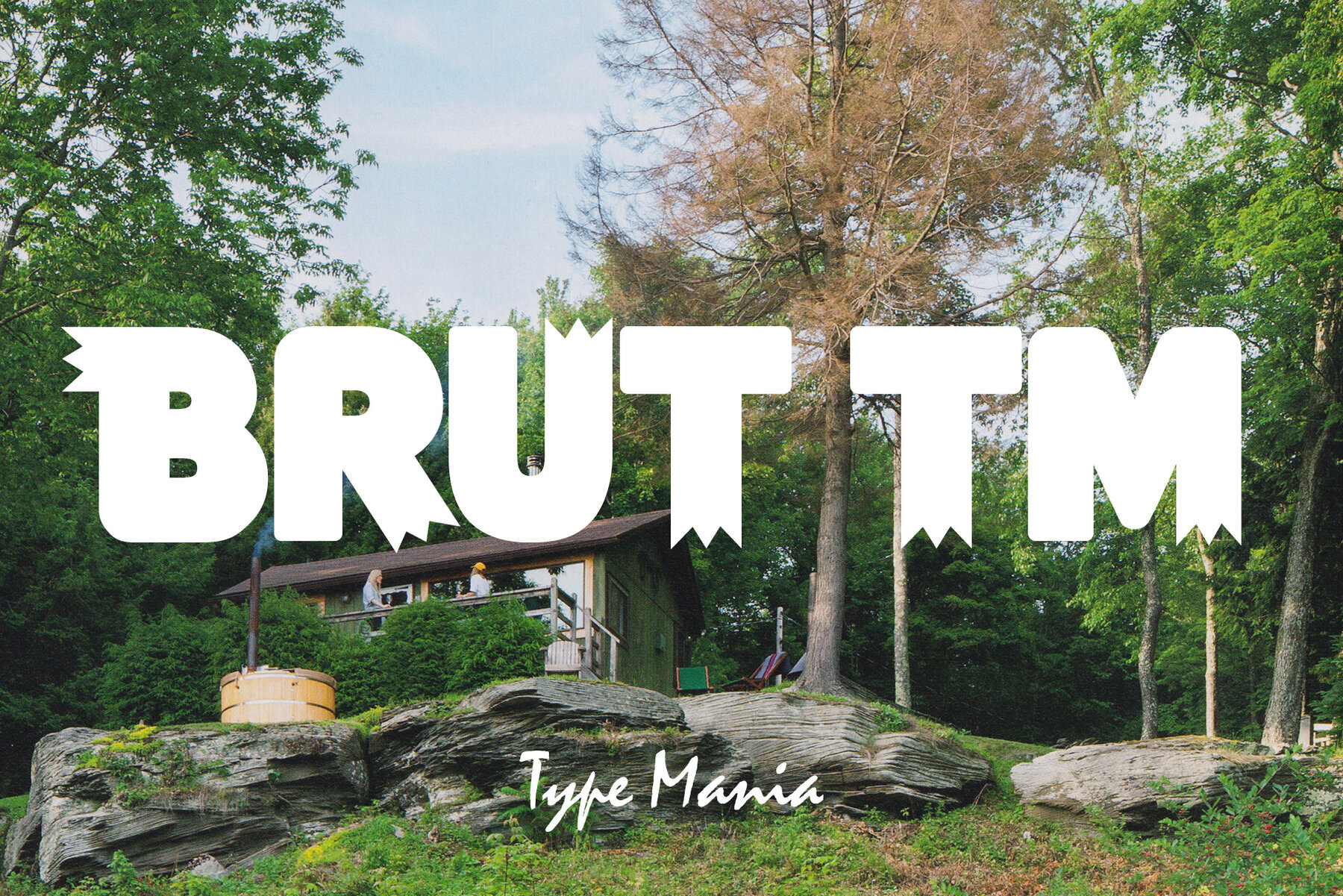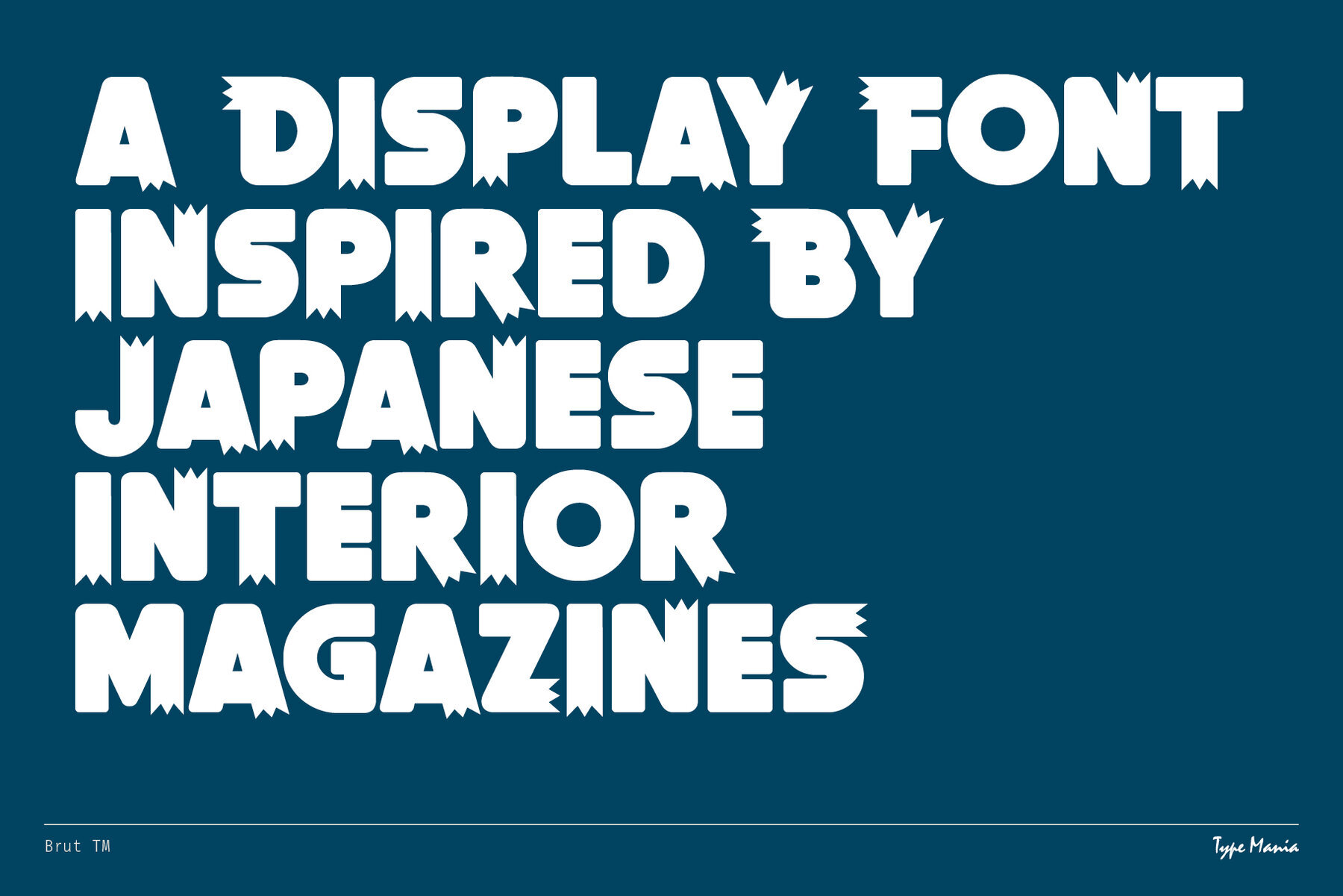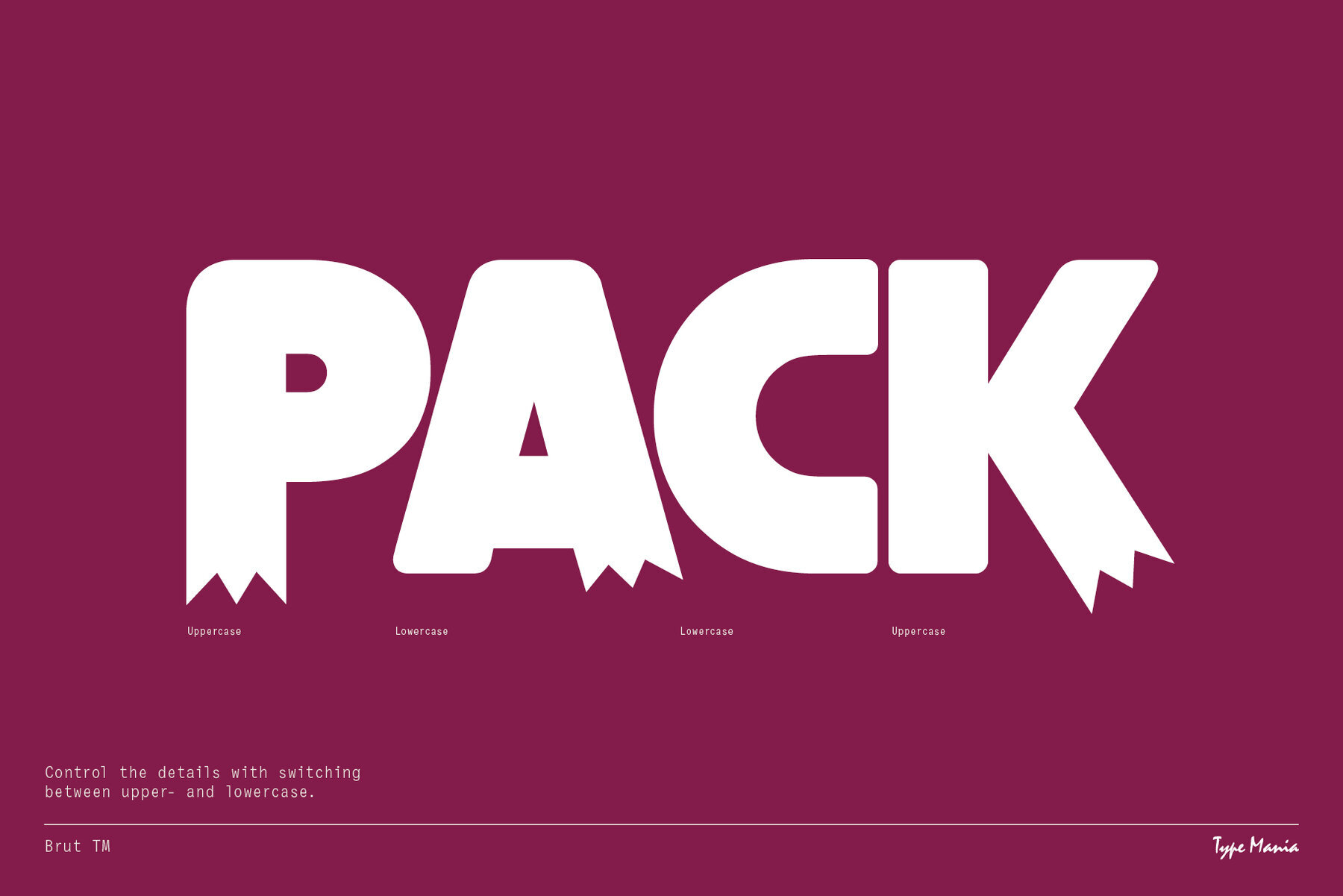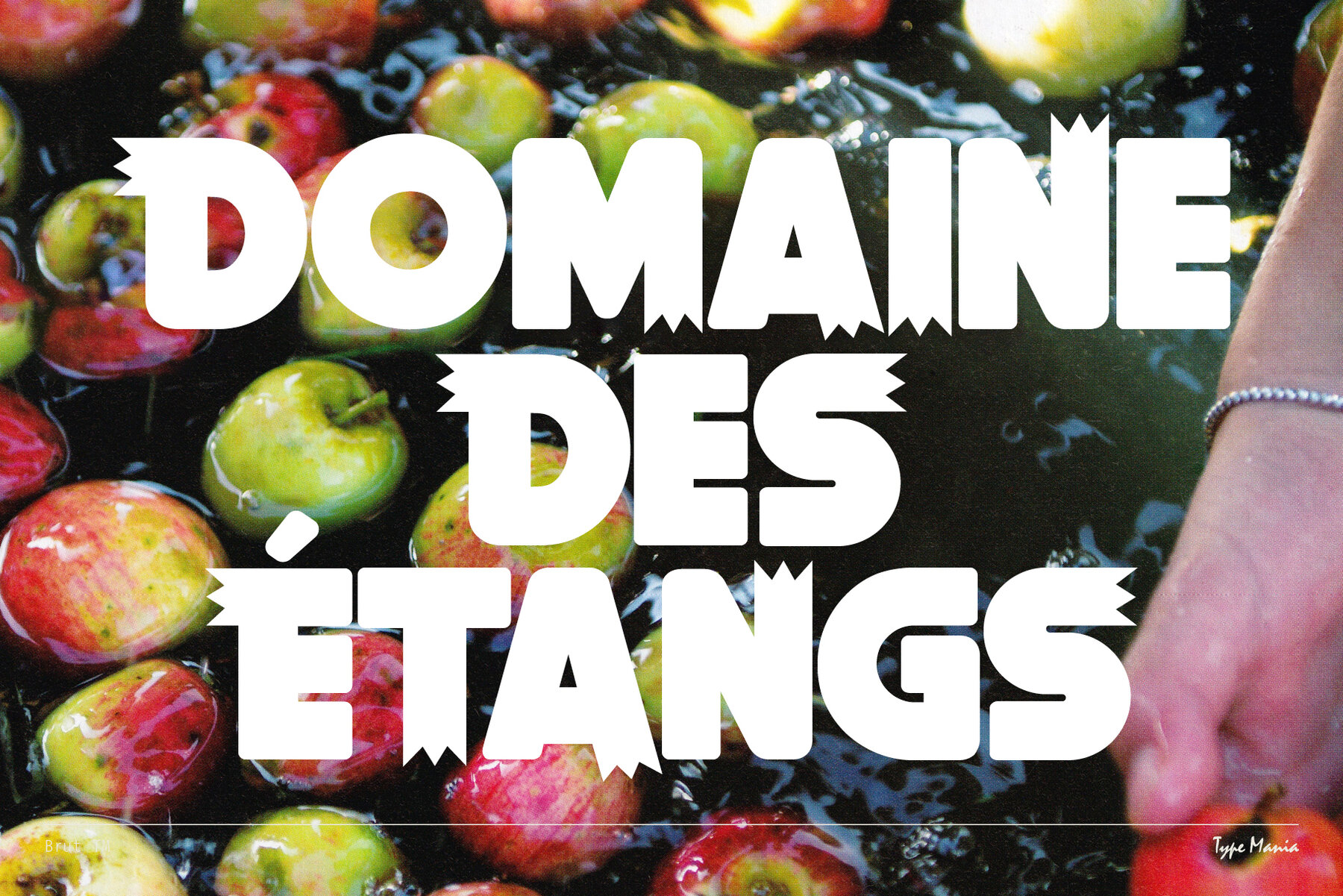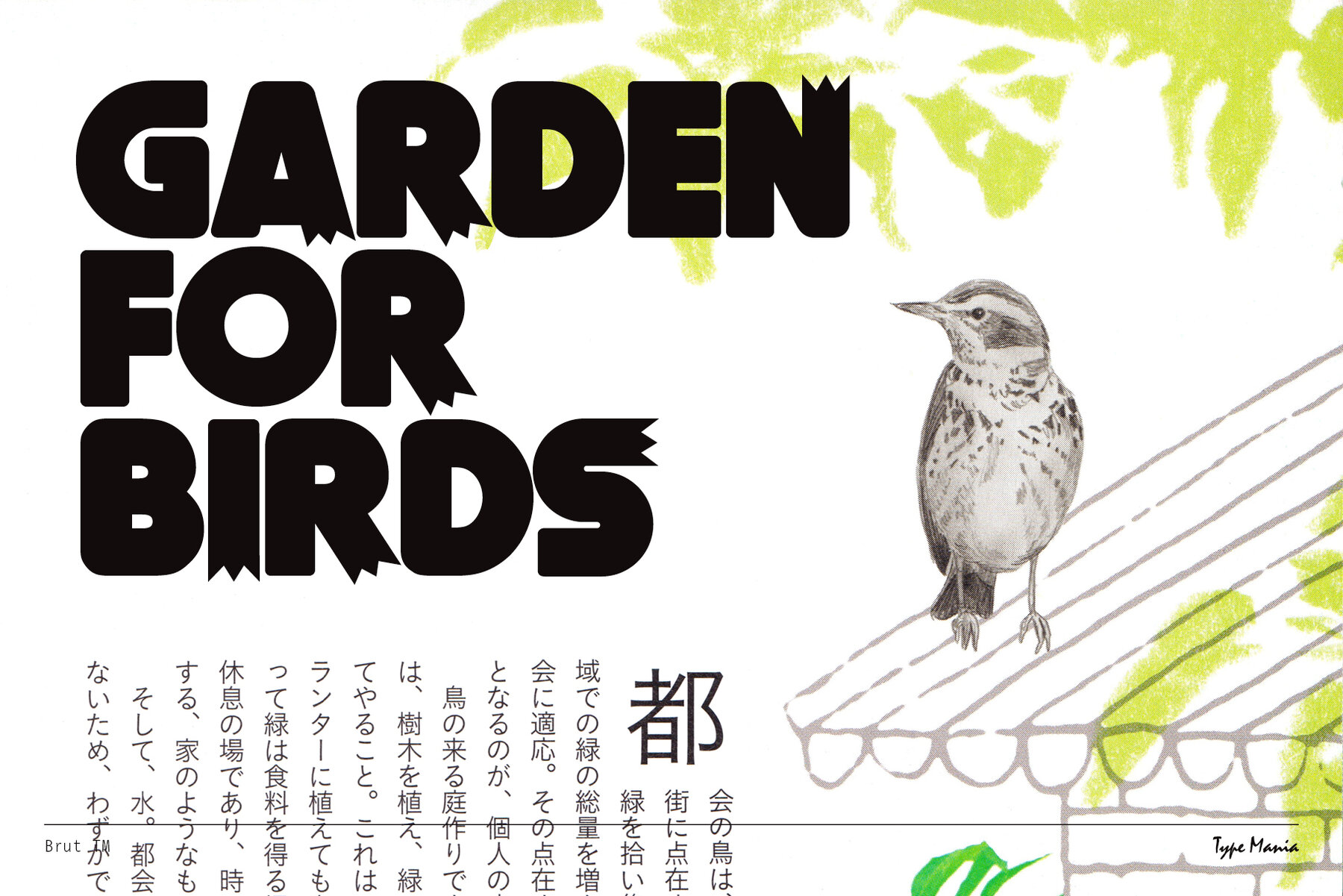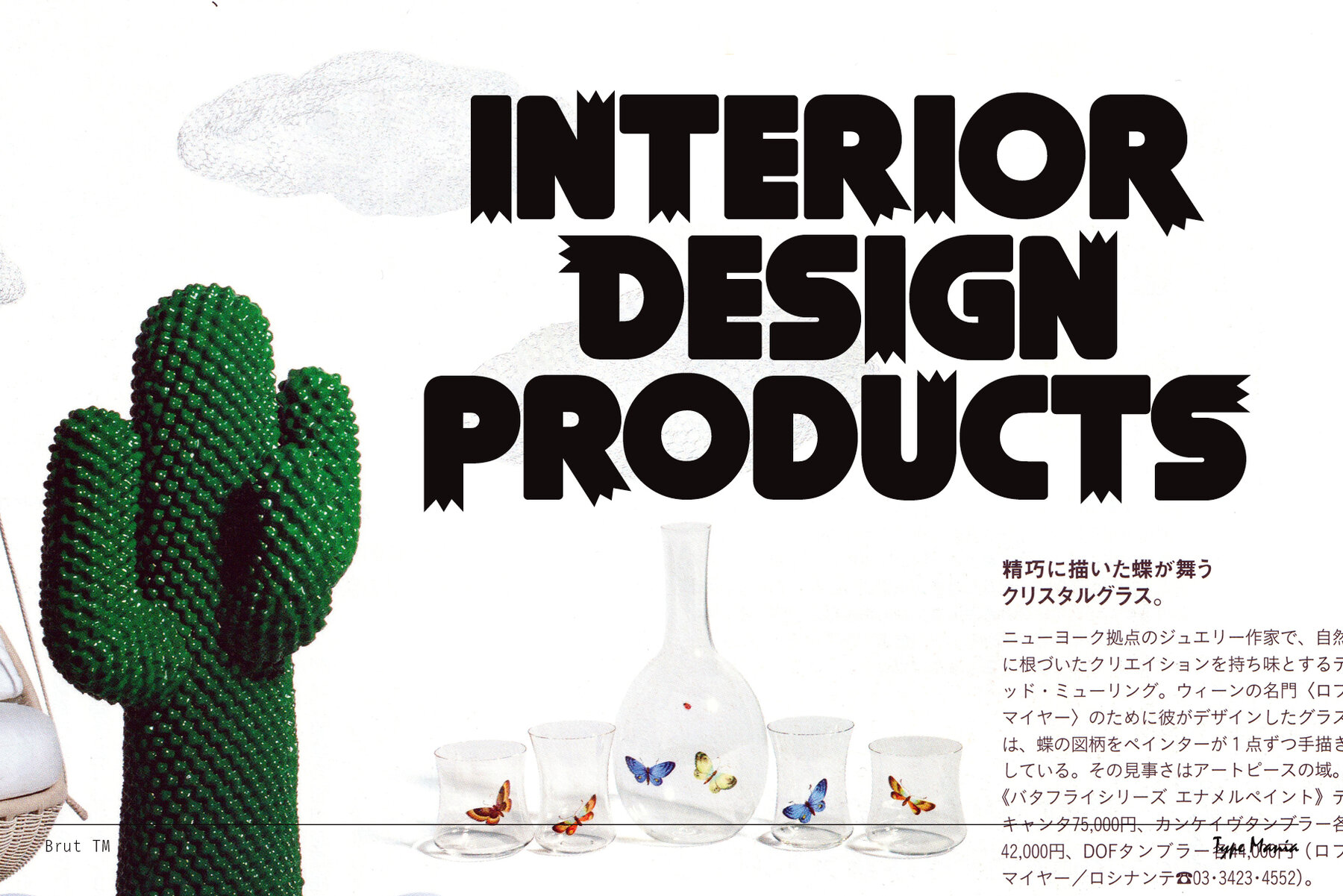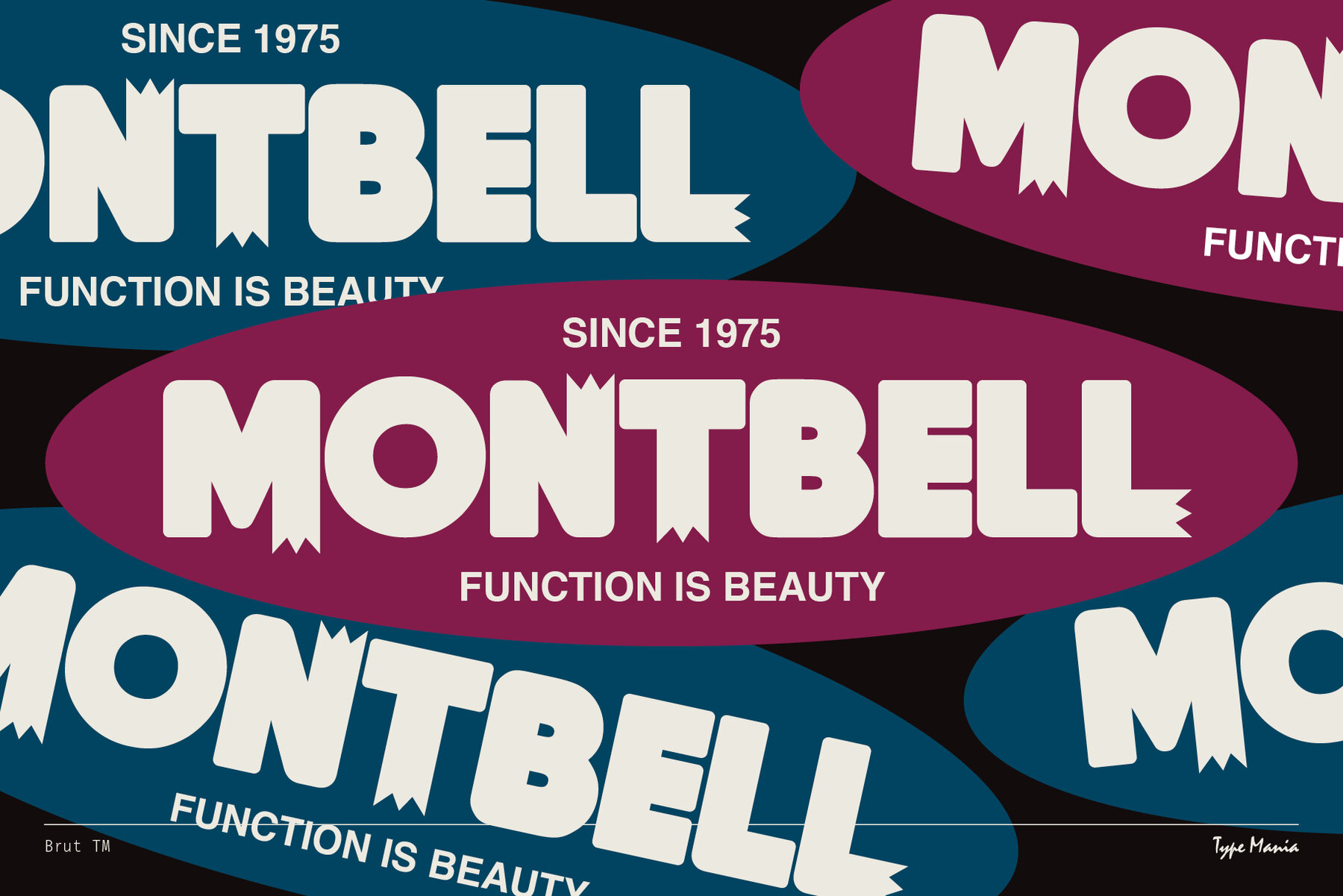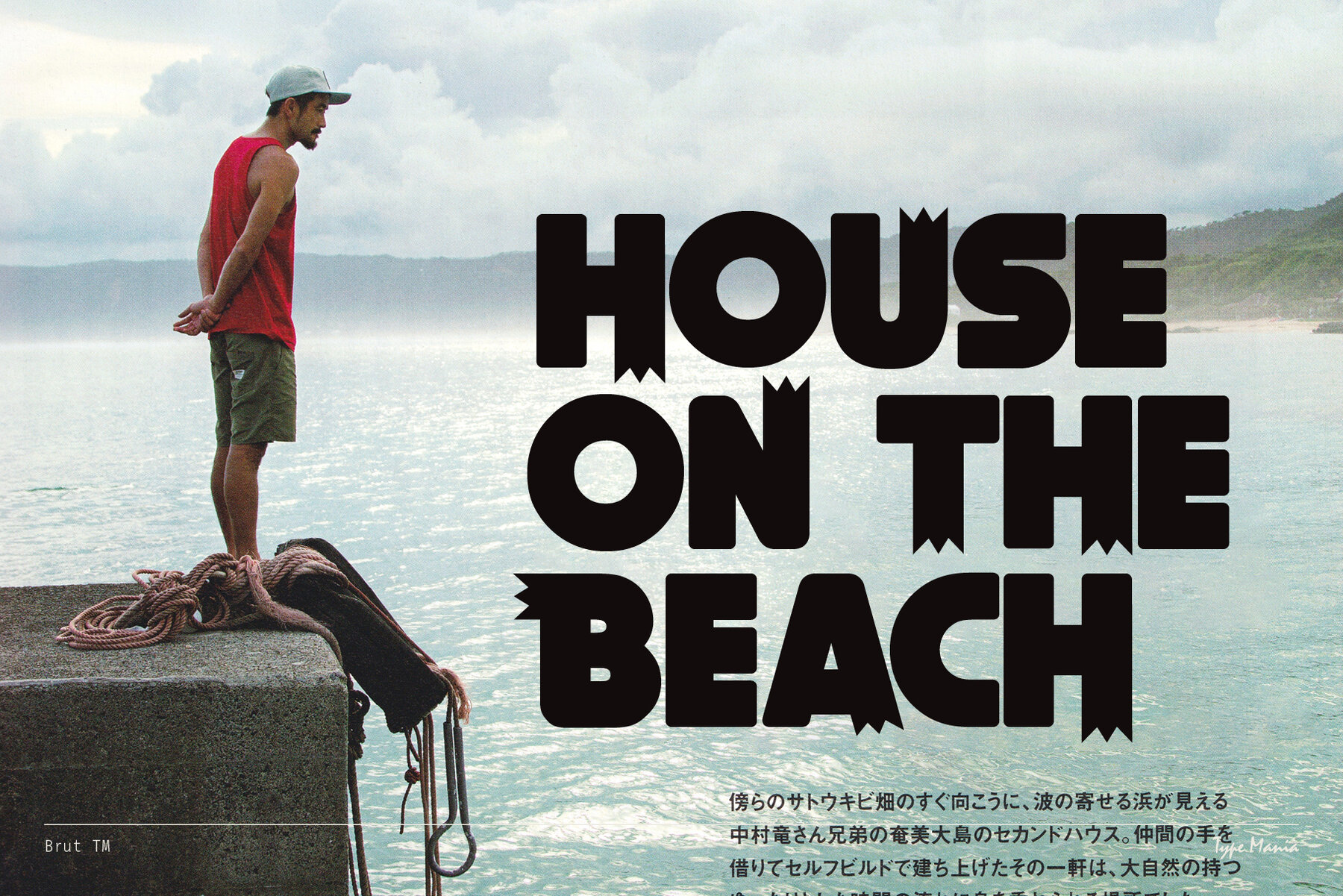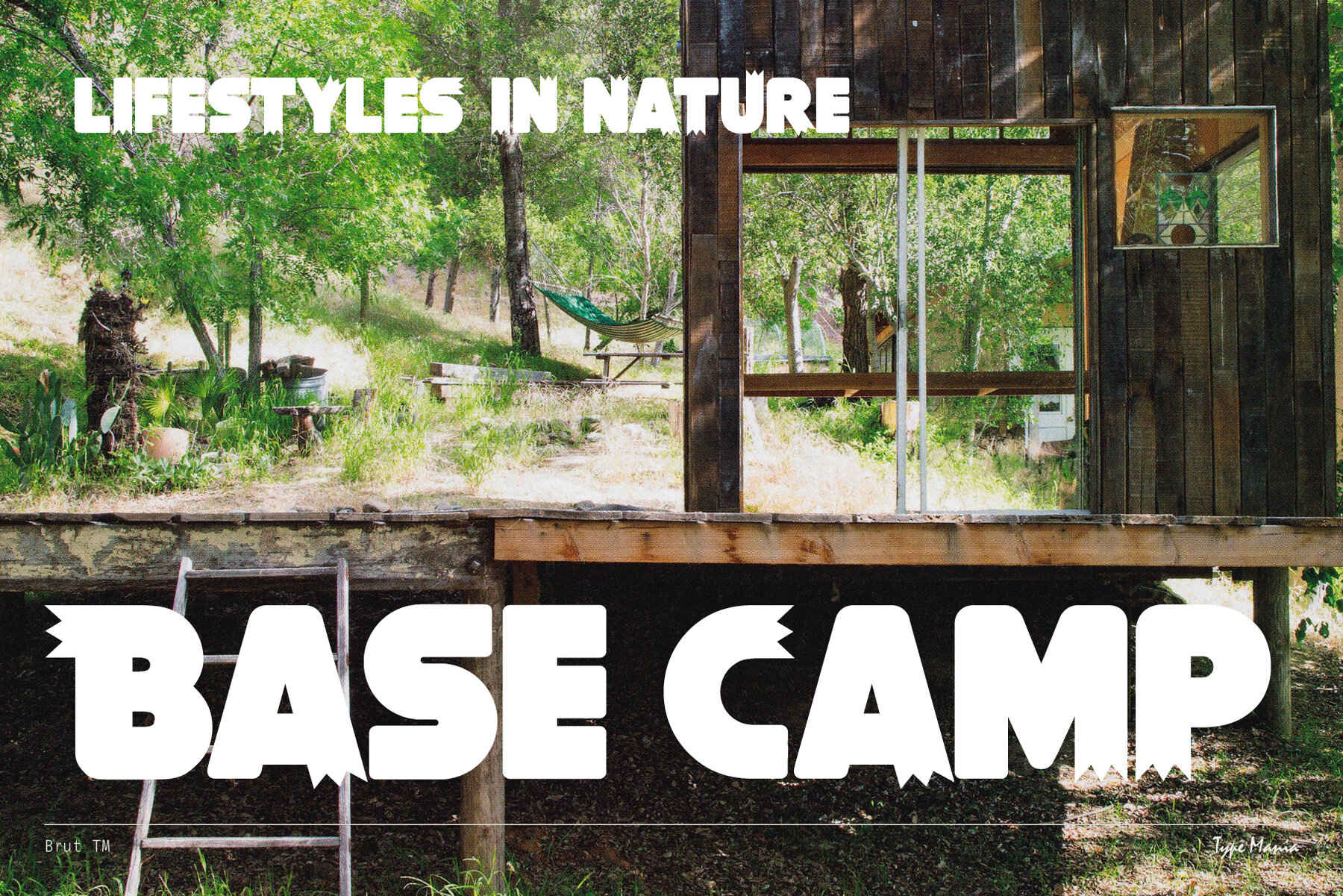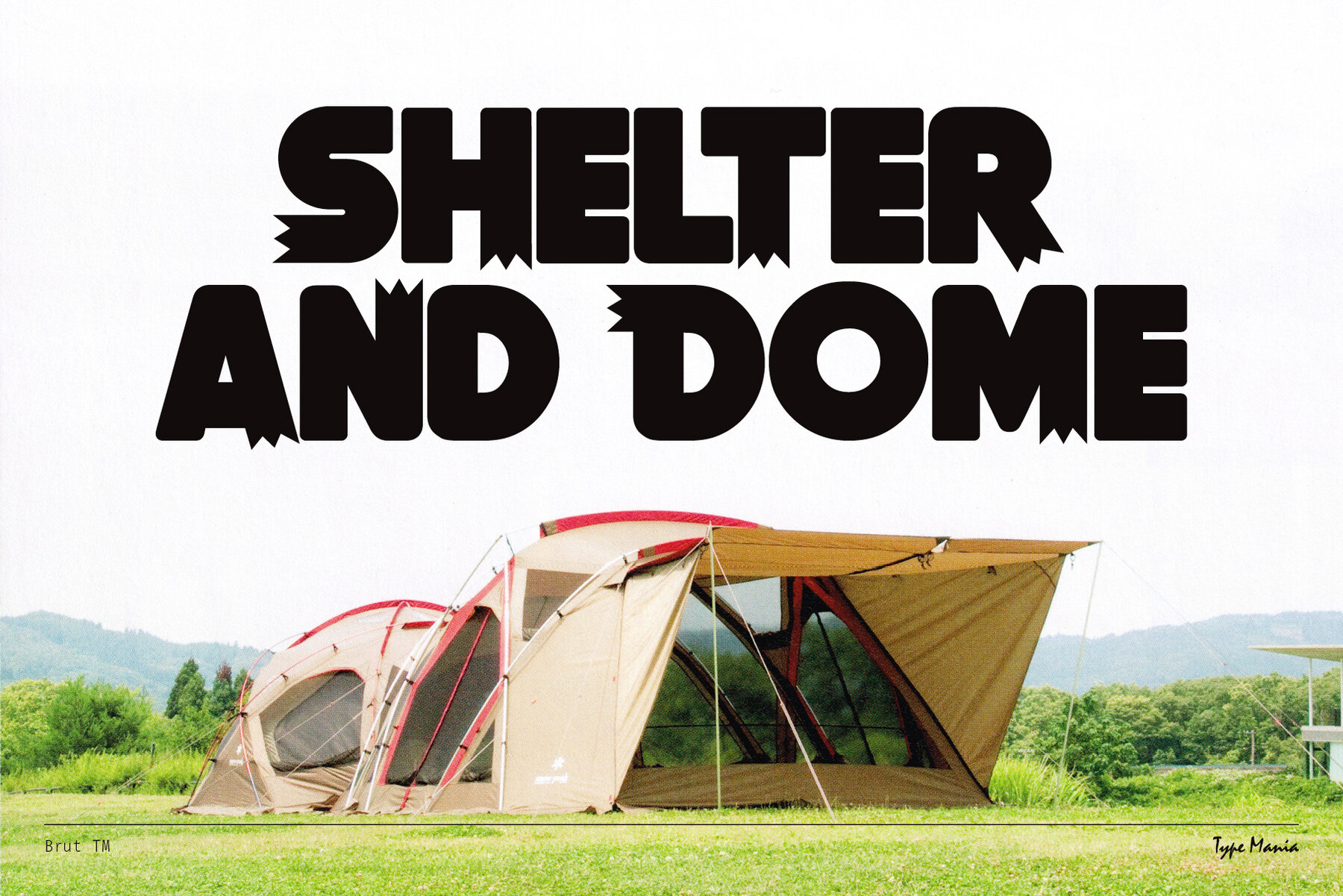
Brut TM Font
Brut TM Regular
Elevate your design game with Brut TM – the cozy and cute typeface inspired by the Japanese interior magazines. Whether you're crafting an editorial, poster, or digital content, Brut TM adds a touch of whimsy to every project. Arigato (ᴗ͈ˬᴗ͈)ꕤ.゚